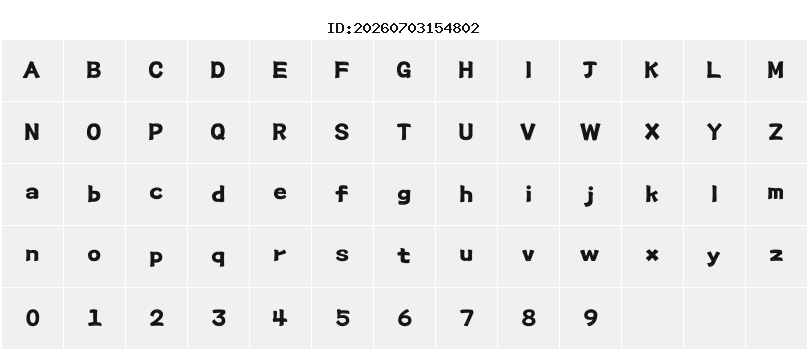
358-上首汉书体 Preview
• Font Name: 358-上首汉书体
• Font ID: 358-上首汉书体:Version 4.000
• Full Font Name: 358-上首汉书体
• Version: Version 4.00 November 4, 2024
• PostScript Name: 358-上首汉书体
• Character Count: 7568
• Manufacturer: 上首造字
About 358-上首汉书体.ttf
358-上首汉书体.ttf is a modern, elegant sans-serif font designed for ultimate readability and visual harmony. Perfect for branding, headlines, web design, and print materials.